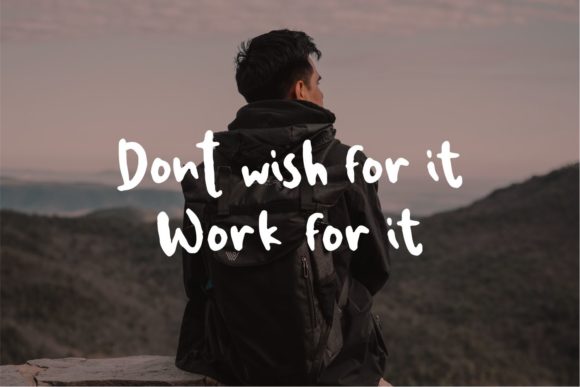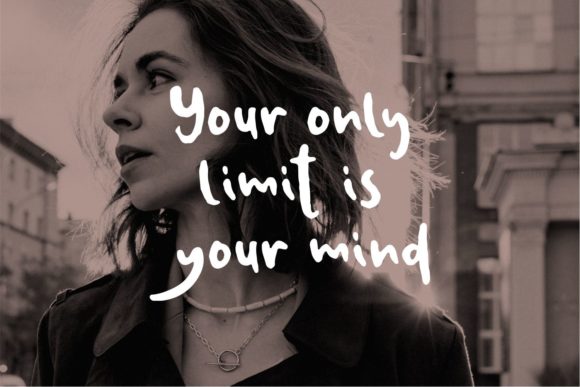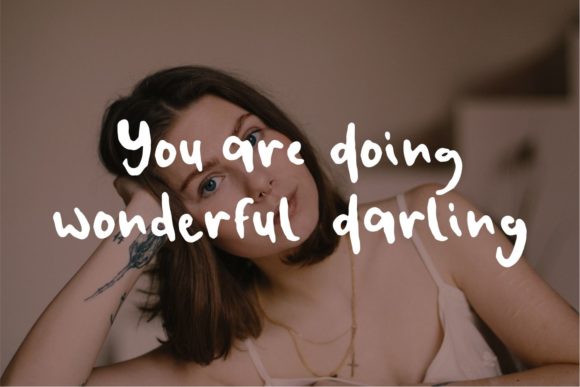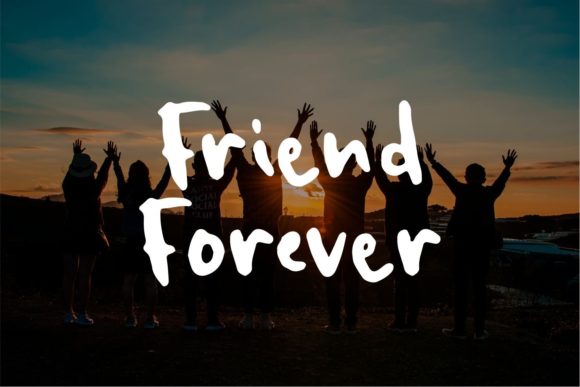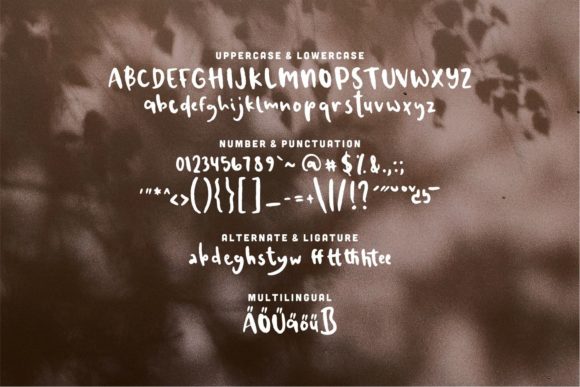
Introduction to Lovelybee Font
As a designer, you’ve probably experienced that moment when you’re working on a creative project and you need the perfect font to bring your vision to life. You’ve spent hours browsing through font libraries, searching for that unique touch that will make your design stand out. And then, you stumble upon it – a beautiful, handwritten font that adds a casual vibe to your project. This is exactly what happens when you discover the Lovelybee Font.
With its unique feel and stunning impact, the Lovelybee Font is a game-changer for designers. Whether you’re working on a brochure, a social media campaign, or a website, this high-quality font is sure to add a professional touch to your design. Plus, with a transparent background, you can easily layer it over any image or texture, giving you endless possibilities for creative expression.
Key Features of Lovelybee Font
- High-quality design resource perfect for creative projects requiring a unique touch.
- Features a transparent background, allowing for effortless layering and customization in design applications.
- Unique, elegant script style ideal for wedding invitations, branding, and other creative projects.
Honest Review: Lovelybee Font
I recently stumbled upon the Lovelybee Font while searching for a design resource to use in a creative project. I was immediately drawn to its high quality and unique aesthetic.
What works well: ✨ The Lovelybee Font offers a free download option, making it accessible to designers of all levels. The font’s transparent background allows for seamless integration with any design element, and its modern style is perfect for contemporary designs.
What could be improved: ⚠️ While the font’s design is great, I found the character set to be somewhat limited. It would be beneficial to have a more comprehensive character set, especially for designers working on projects that require a wide range of languages and special characters.
Overall impression: I was impressed by the Lovelybee Font’s design and functionality. While it may not be perfect, it’s a great addition to any designer’s toolkit. With a few tweaks to address the limitations, I believe it has the potential to become a go-to font for creative projects.
Key features:
- Modern style
- Limited character set
Designing with Lovelybee Font
Tips for Getting the Most Out of Lovelybee Font
For best results, use the Lovelybee Font in conjunction with a high-quality image or design. You can also experiment with different font sizes, colors, and effects to create a unique and eye-catching design.
Common Use Cases for Lovelybee Font
The Lovelybee Font is perfect for any creative project, including social media graphics, blog posts, business cards, and more. Its transparent background makes it easy to overlay on any image or design, making it a versatile design resource.
Does the Lovelybee Font have a transparent background?
Yes, the Lovelybee Font is designed with a transparent background, making it easy to use in design applications where a solid background is not required. The font is also designed to be highly legible, even when used in complex compositions with multiple layers and effects.